41 Stylish Tropical Fonts (Island and Beach Themed Fonts)
What better way to turn up the heat in your next project than with a tropical font?
Today we'll be showcasing 41 of the best tropical fonts you can find at Envato Elements.
What Is a Tropical Font?
So what is a tropical font? Well, a tropical font is any font that makes you think of sunny days spent under coconut trees with sand between your toes and turquoise seas spread out before you. Now let's look at some of the best tropical fonts to give you more ideas and inspiration!
41 Stylish Tropical Fonts
Coconut Beach Font (TTF, OTF, WOFF)
Let's kick things off with Coconut Beach Font, a casual and creamy monoline font with a bouncing baseline, designed to capture the casual, relaxed feeling of a beach holiday. This font includes upper and lowercase characters, numbers, and punctuation, as well as ligatures and multilingual support.
Beach Party Font (TTF, OTF)
Creating an invitation to a beach party? Well, you need a bold and fun font to set the mood, and Beach Party Font is just the right choice for you. Let the party begin.
Lombok Beach Fonts (TTF, OTF, WOFF)
Beach holidays are all about fun, awesome cocktails, and relaxation in between. If that's the vibe you want to capture in your project, check out Lombok Beach Font. This wonderful handwritten font is a great choice for posters, invitations, signage, and more.
Five Tropical Fonts (TTF, OTF, WOFF)
Five Tropical Fonts contains a selection of gorgeous fonts in different styles which each offer their own vibe. Check them out to find the one that's right for your project. And while you're at it, take a look at the fabulous bonus collection of illustrations and swashes included in this package.
Tiki Tropic Tropical Lettering (TTF, OTF, WOFF)
Each island paradise offers its own vibe, and this font is all about the Hawaii vibe. Tiki Tropic Tropical Lettering is a cool display font that includes uppercase characters, numbers, punctuation, and some multilingual support. What's more, the font offers fabulous graphics to help accentuate the tropical escape look, like palm trees and dolphins jumping through the air.
Tropical Island Beach Fonts (TTF, OTF, WOFF)
Tropical Island Beach Fonts offers two fonts: one a sans serif and the other a script font. Use them to bring a beach touch to your brochures, posters, branding, etc.
Tropical Island Font (TTF, OTF, WOFF)
Looking for a bold handwritten font with a tropical vibe? How about Tropical Island Font? It's a great display font for signage, posters, banners, and other large-scale projects.
Stone Ocean Tropical Fonts (TTF, OTF)
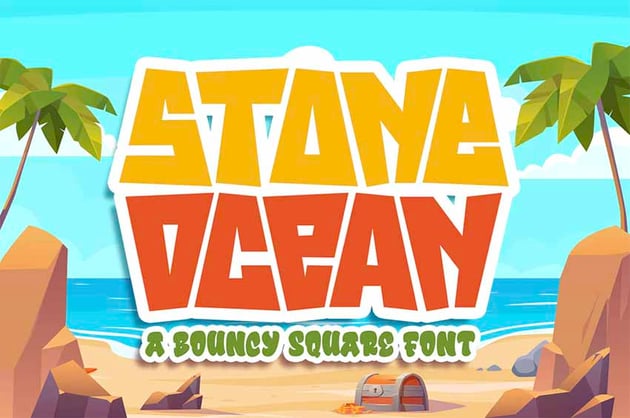
What would Stone Age in the tropics look like? Stone Ocean Tropical Fonts is the answer. This bold and playful display font is a great choice when you're looking for a tropical font with a twist.
Marchita New Tropical Design Font (TTF, OTF, WOFF)
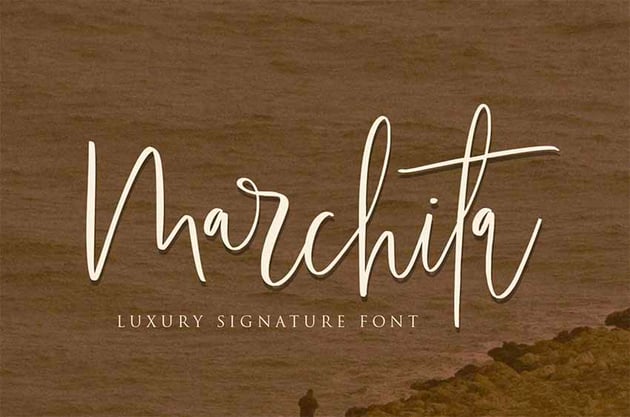
Marchita New Tropical Design Font is a chic signature font with lots of alternates and stunning ligatures that give you a lot of room for experimentation. It would be an excellent choice for branding, cards, and weddings.
New Tropical Design (TTF, OTF, EOT)
For a more modern take on the tropical theme, check out New Tropical Design. It includes upper and lowercase characters, numbers, punctuation, ligatures, alternates, and multilingual support.
Tropical Lettering (TTF, OTF, WOFF)
When you need a more sophisticated take on the tropical font, there is Tropical Lettering. This wonderful font offers a set of ligatures and alternates that allow you to create your own beautiful characters to accentuate the standard characters.
Groovy New Tropical Design (TTF, OTF, WOFF)
Groovy New Tropical Design harnesses the power of retro to create a cool and distinctive font that works perfectly for branding, logo creation, posters, labels, etc.
Life is a Beach Boy Font (TTF, OTF, WOFF)
Yup! You heard it here first. Life is a Beach Boy Font, and happily it's exactly what you need to create your stunning posters, flyers, banners and the like.
Summer Tropical Design Font (TTF, OTF, WOFF)
It doesn't get better than Summer Tropical Design Font, a modern display font that is all about exuberance. This handmade calligraphic font includes upper and lowercase characters, numbers, and punctuation, as well as a great selection of ligatures, alternates, and multilingual support.
Tropical Vacatina (TTF, OTF, WOFF)
Tropical Vacatina is just what you need when you want to capture vacation mode in your next project. This fabulous script font is a great choice for postcards, editorials, invitations, and more.